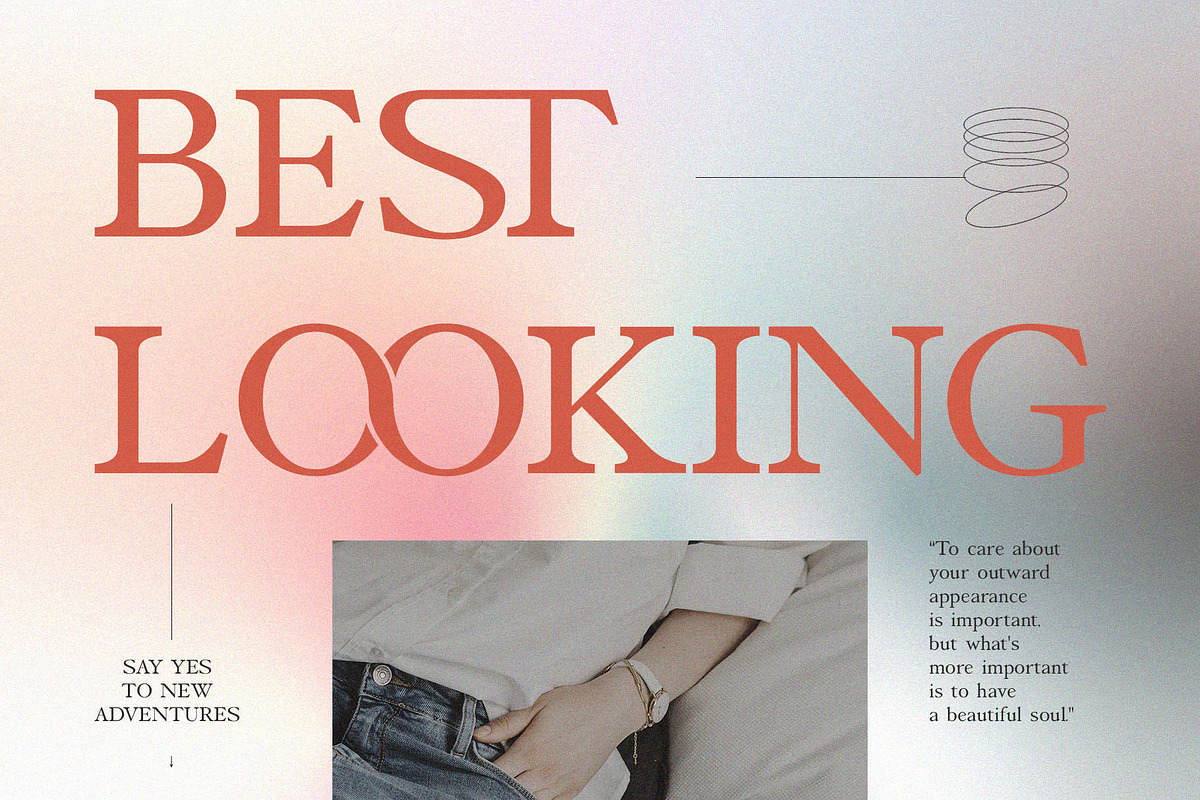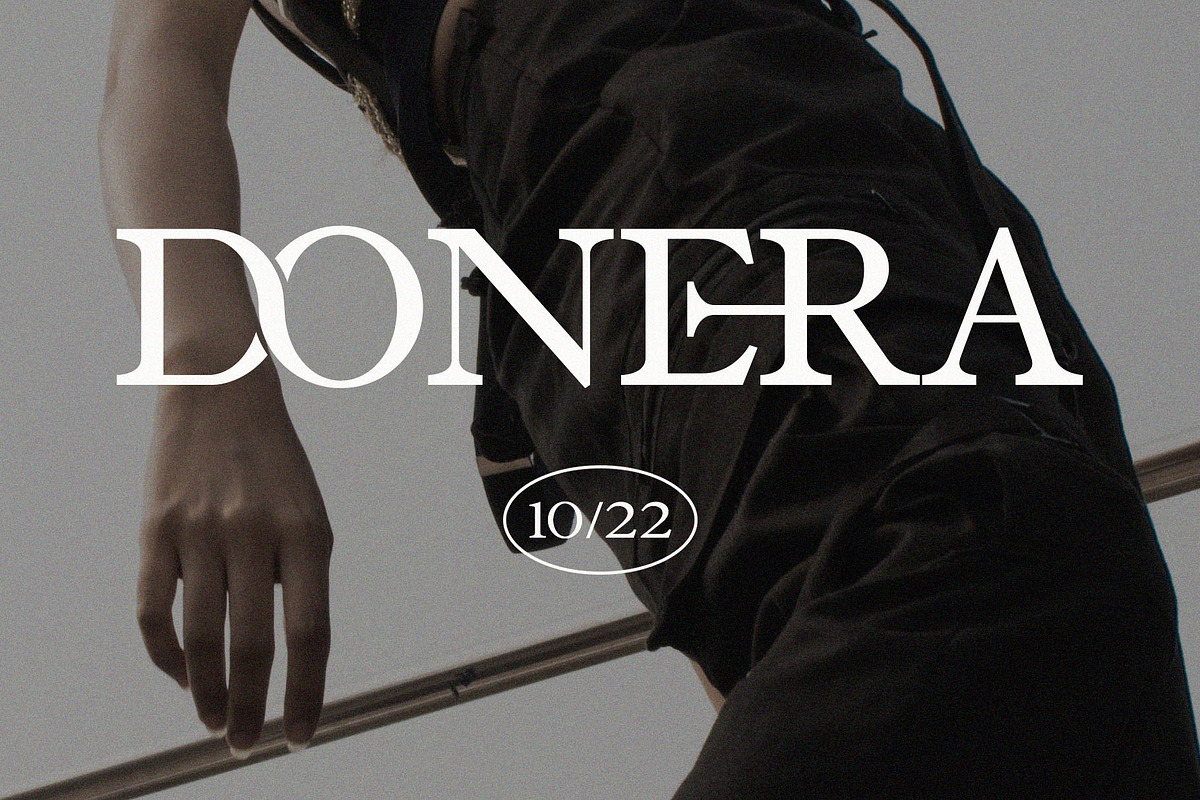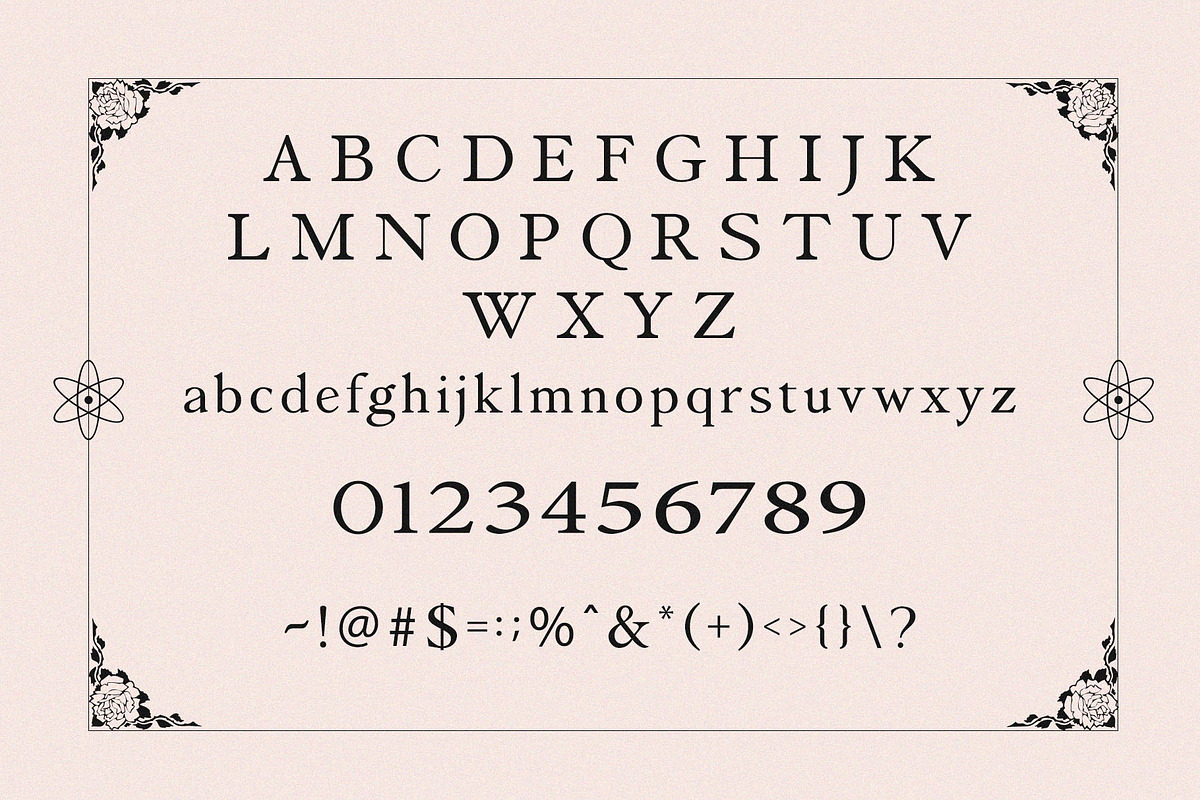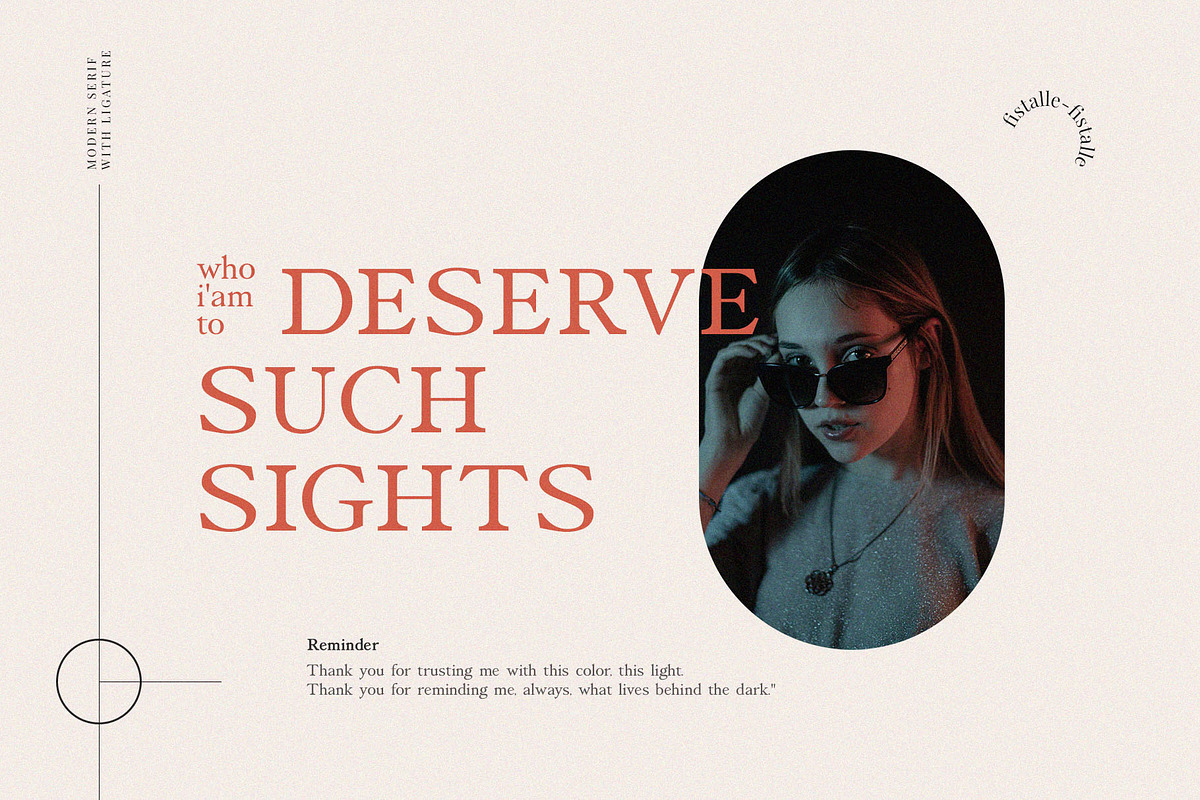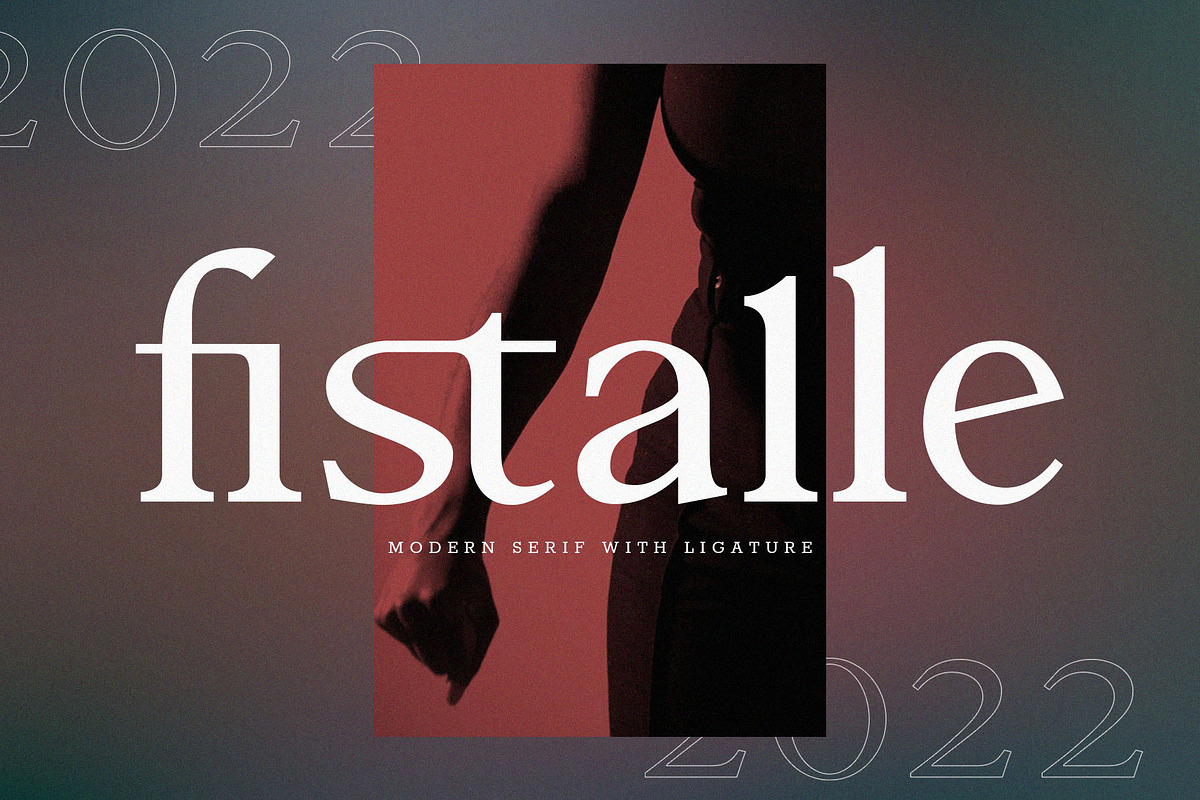
Fistalle Modern Serif With Ligature
Introducing 'Fistalle' Font:
Introducing Fistalle, a playful, elegant, and modern serif font crafted for a variety of design applications. Ideal for logo design, social media posts, movie titles, book titles, short text, and even long text, Fistalle offers versatility for all your creative needs. Elevate your designs and create stunning masterpieces with the unique and charming aesthetic of the Fistalle font.
Ideal for:
- Modern Designs
- Beauty and Fashion
- Advertising Campaigns
- Social Media Designs
- Elegant Creations
- Magazines
- Ready for Creative Expression
- Immaculately Crafted Letters